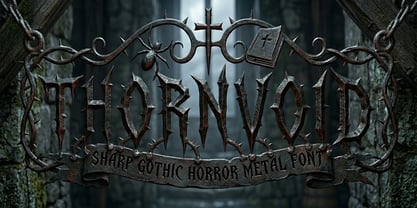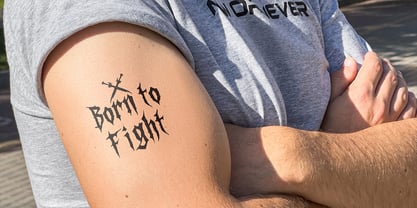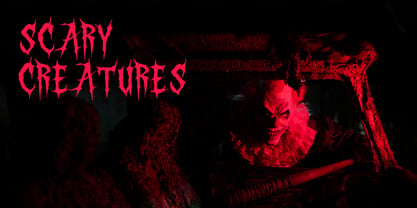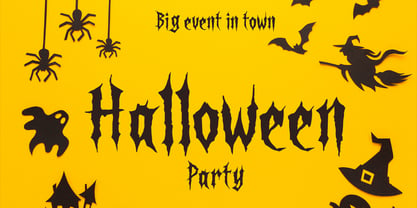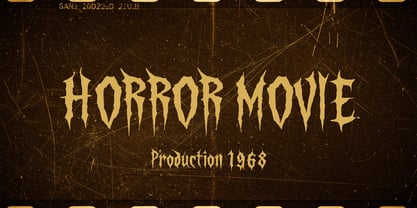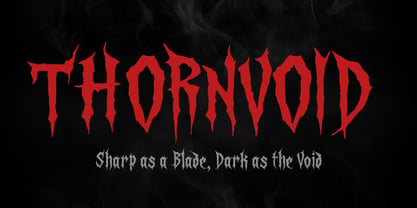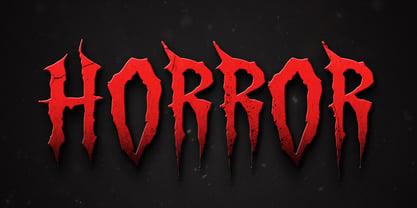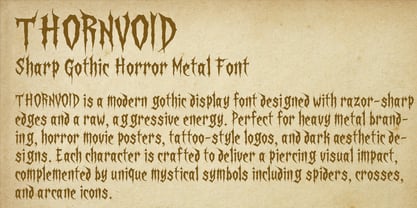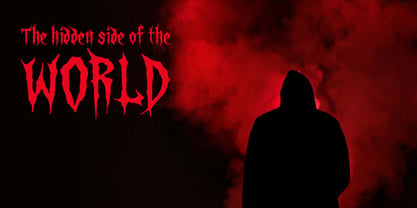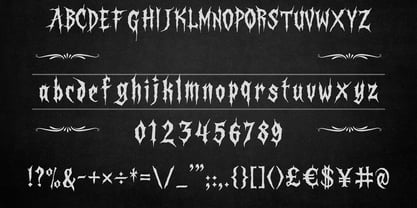
Thornvoid
The Thornvoid Font Family was designed by Omar Mahmood and published by OWPictures. Thornvoid contains 1 styles. More about this family
Unleash the darkness with Thornvoid, a razor-sharp gothic display font built for maximum impact. Designed with raw, aggressive strokes and jagged edges, this font is the ultimate choice for heavy metal branding, horror film titles, tattoo parlors, and dark aesthetic art. Thornvoid is more than just an alphabet; it's a complete toolkit for dark design, featuring a full set of uppercase and lowercase letters, numbers, extensive punctuation, and a collection of special horror-themed ornaments like spiders and crosses. Elevate your project with a look that is as sharp as a blade and as deep as the void.